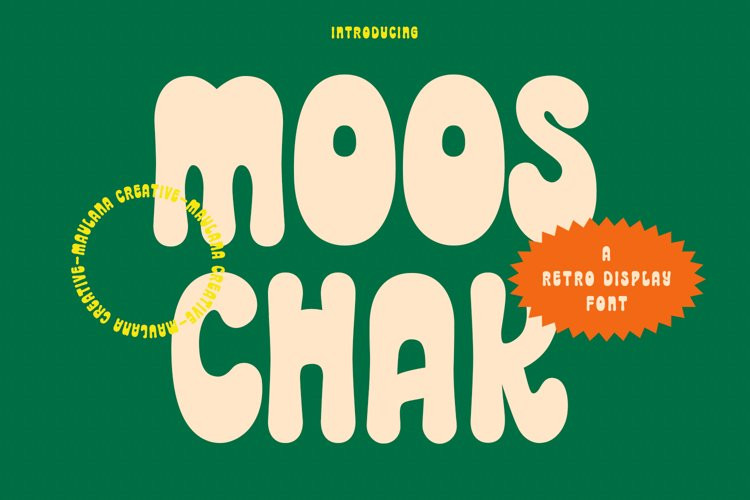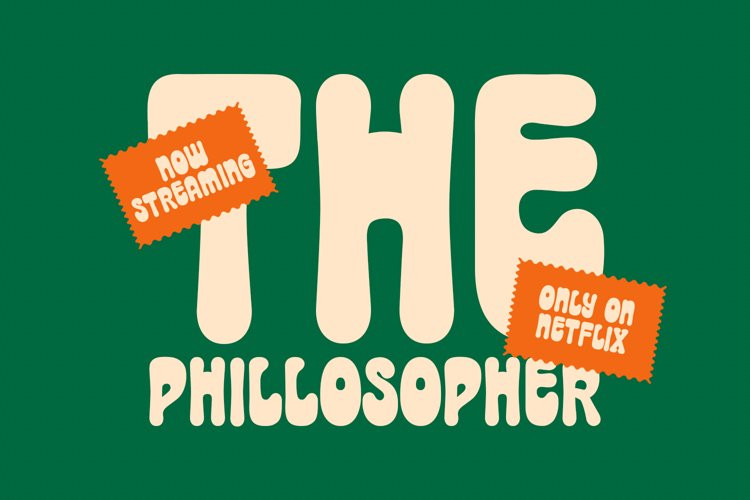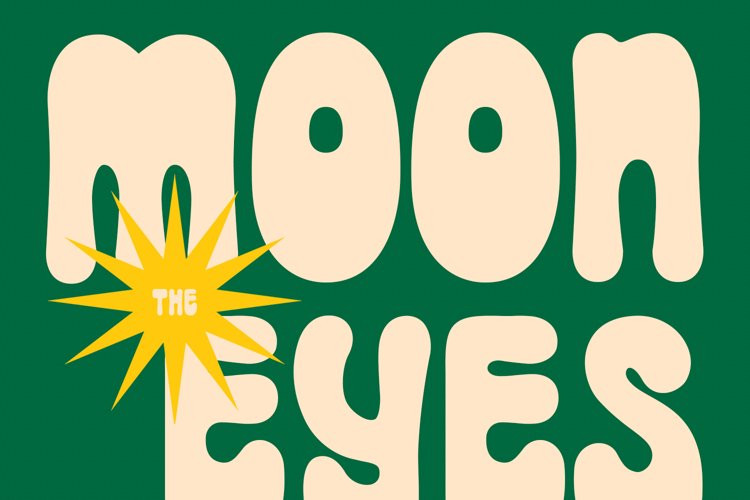
Mooschak Font
Mooschak FontMooschak is a bouncy fat handwritten display font. With bold contrast stroke and fun character. To give you an extra creative work. Mooschak font support multilingual more than 100+ language. This font is good for logo design, Social media, Movie Titles, Books Titles, a short text even a long text letter and good for your secondary text font with sans or serif. Make a stunning work with Mooschak font.